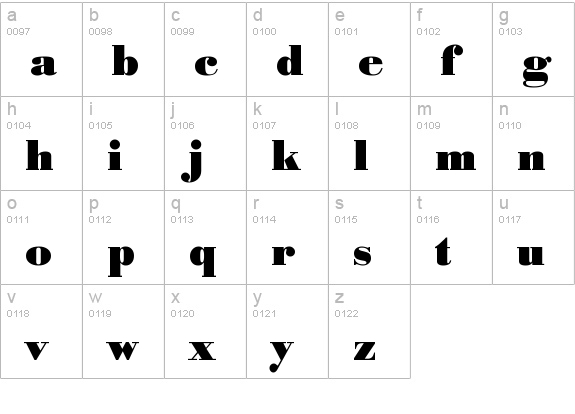
BodoniSerial-Black-Regular is a maximum-weight, dramatic variant in the BodoniSerial typeface family \xE2\x80\x94 well suited to maximum-impact headlines, posters, and packaging.
BodoniSerial-Black-Regular is a timeless and elegant font that exudes sophistication and style. With its bold and striking appearance, this typeface is perfect for creating eye-catching headlines, titles, and logos. The thick strokes and clean lines of BodoniSerial-Black-Regular make it a versatile choice for various design projects, from print materials to digital content. What sets BodoniSerial-Black-Regular apart is not just its aesthetic appeal, but also the fact that it is available for free download at FontsMarket.com. This means that you can easily access and use this stunning font in your designs without any cost. Whether you are a professional designer or a hobbyist looking to elevate your projects, BodoniSerial-Black-Regular offers a high-quality and stylish option that won't break the bank. Download BodoniSerial-Black-Regular for free today and add a touch of sophistication to your designs with this classic and versatile font.